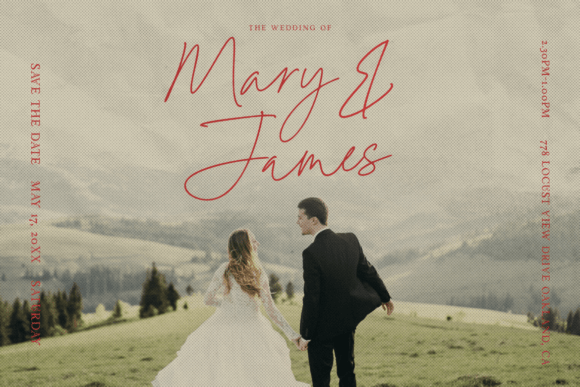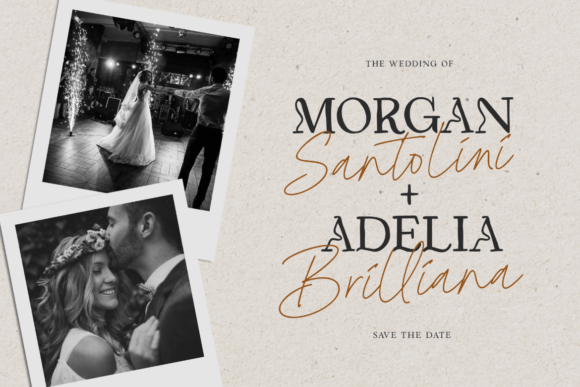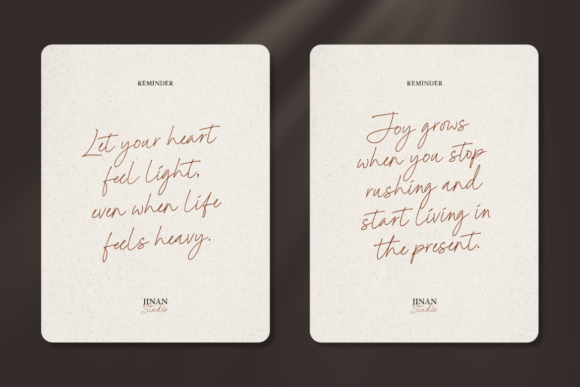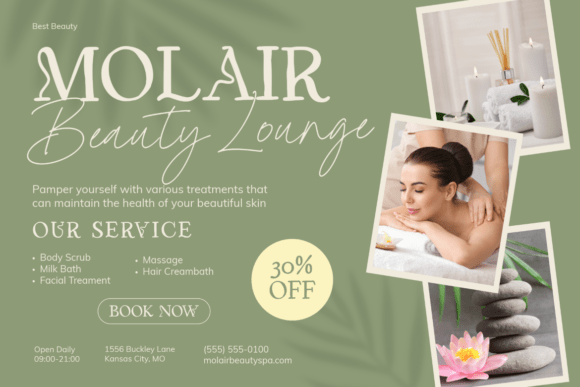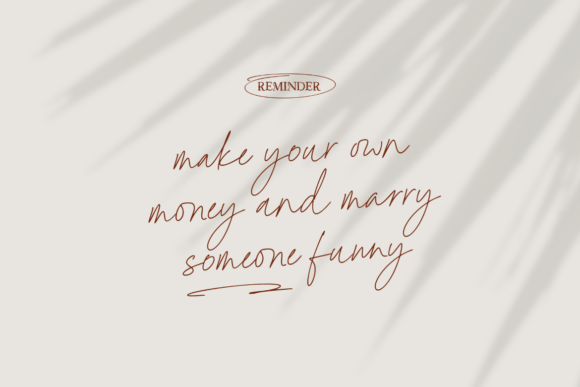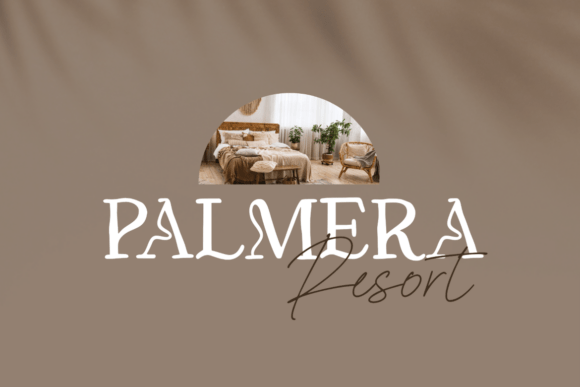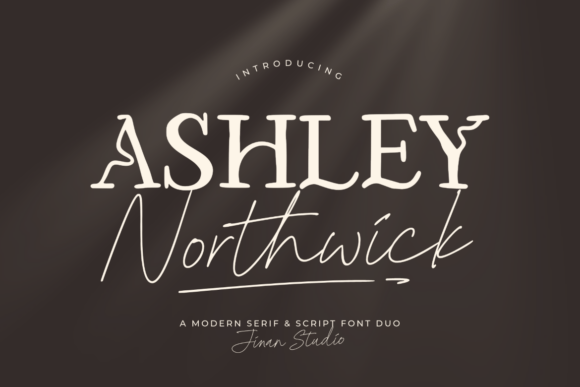
The Ultimate Font Duo for Designers: Ashley Northwick
Have you ever been in the middle of a design project, and suddenly, you just can’t seem to find the right font? I recall a particularly frustrating experience while working on a luxury brand’s wedding invitation suite. My client wanted a sophisticated, high-end feel, but I was struggling to find a font that exuded elegance and personality. That’s when I stumbled upon the Ashley Northwick font duo, and it completely transformed my design.
A Closer Look at Ashley Northwick
Ashley Northwick is a modern and elegant serif & script font duo designed to bring sophistication and personality into your designs. The serif typeface delivers a clean, stylish, and professional presence, while the handwritten script adds a natural, flowing touch that feels warm and expressive.
What I Love About Ashley Northwick ✨
- ✅ Perfect Pairing: The combination of a clean serif and a flowing script creates a beautiful harmony that’s perfect for branding, logos, wedding invitations, and more.
- ✅ Elegant and Versatile: This font duo is ideal for luxury brands, personal projects, or creative businesses, offering a strong visual impact in every composition.
- ✅ Easy to Use: All glyphs and swashes are PUA encoded, making them simple to use in any design software.
- ✅ Timeless Design: Ashley Northwick helps you create high-end visuals with effortless harmony between classic and modern styles.
While Ashley Northwick is an amazing font duo, there are a few minor things to keep in mind:
- 🤔 Script Font Limitations: The script font can be a bit tricky to use at very small sizes, so it’s best to use it for headlines or titles.
- 🤔 Character Limitations: As with any font, some characters may not be available in certain design software, but PUA encoding makes it easy to access glyphs and swashes.
The Story Behind Ashley Northwick
Ashley Northwick was designed with the goal of creating a font duo that embodies both sophistication and personality. The designer aimed to craft a clean, stylish serif font and a natural, flowing script that would work seamlessly together. The result is a versatile font duo that’s perfect for a wide range of design projects.
| Is Ashley Northwick suitable for body text? | While the serif font is suitable for body text, the script font is best used for headlines or titles. |